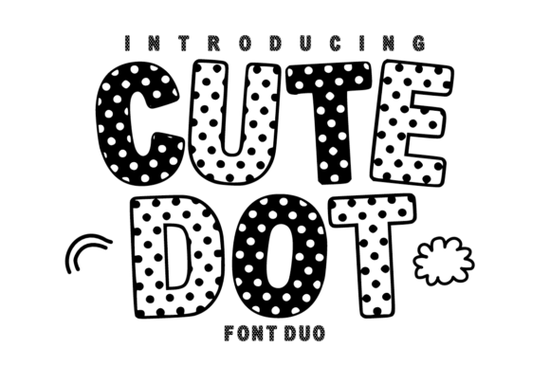
Looking for a fun, playful typeface that works across birthday invitations, classroom decor, and print-on-demand projects? The Cute Dot Duo Font delivers exactly that a cheerful polka dot display font paired with a clean solid companion, giving you two complementary styles in one download. It's designed for anyone who wants their text to feel lighthearted and approachable without sacrificing readability.
What Comes in the Cute Dot Duo Font Package?
This font set includes two distinct styles that work beautifully together or on their own:
- Polka Dot Version A bold display font filled with classic round dots, giving each letter a textured, hand-crafted appearance.
- Solid Version A clean, matching typeface with the same quirky letter shapes but without the dot fill. Perfect for body text or layering beneath the dotted version.
Because both fonts share the same underlying structure, you can pair them freely. Use the dotted style for headlines and the solid version for supporting text. The irregular, slightly uneven shapes give the whole set a warm, hand-drawn feel that's hard to replicate with standard fonts.
Why Do Designers Love Polka Dot Fonts for Kids' Projects?
Polka dot fonts like Cute Dot tap into a visual language that people instantly associate with playfulness and celebration. The round, repeating pattern reads as cheerful not busy especially when the letterforms are kept bold and simple. That's why you'll see this style everywhere on:
- Birthday party invitations and matching envelopes
- Classroom bulletin boards and teacher resource covers
- Children's apparel and tote bag designs
- Scrapbook titles and digital planner stickers
- Baby shower signage and stationery branding
The key is that dot-filled type adds visual interest without relying on extra illustrations. A single word set in this font can carry an entire design.
Does This Font Work With Cricut and Silhouette Machines?
Yes, and this is one of the biggest reasons crafters pick it up. The bold, high-contrast letterforms cut cleanly on vinyl, cardstock, and sticker paper. Because the polka dot pattern is built directly into the font not applied as a separate texture it transfers well to physical cutting machines without creating fragile, intricate paths that snag or tear.
A few practical tips for cutting projects:
- Use the solid version for smaller cuts (under 1 inch height) where the dots might not read clearly.
- Use the dotted version at larger sizes where the pattern adds character without becoming too dense.
- Test-cut a single letter before committing to a full layout, especially on textured vinyl.
How Does Cute Dot Compare to Other Decorative Fonts?
If you're building a collection of playful typefaces, it helps to understand where each one fits. Cute Dot is specifically designed for a sweet and happy aesthetic think children's parties, baby brands, and lighthearted merchandise. If you need something more formal or structured, you might look at a bold monogram slab serif for initials and logo work. For projects that call for elegance with a decorative edge, an elegant decorative script offers a completely different mood.
Having a range of styles in your toolkit means you can match the font to the project's tone rather than forcing one typeface to do everything.
Best Ways to Use This Font in Print-on-Demand
If you sell on platforms like Etsy, Redbubble, or Merch by Amazon, fonts like this one help you create designs that stand out in crowded categories. Here are a few product ideas that pair well with this playful font duo:
- T-shirt designs Use the dotted font for a single bold word like "PARTY" or "SMILE" on kids' tees.
- Mugs and tumblers Layer the solid version over a colorful background for clean readability.
- Greeting cards Combine both versions for a headline-plus-subtext layout.
- Stickers and planner accessories The small, playful shapes translate well to die-cut sticker sheets.
Quick Checklist Before You Start Designing
Here's a simple action plan to get the most out of your purchase:
- ✅ Download both font files and install them on your system.
- ✅ Test each version at multiple sizes to see where the dots perform best.
- ✅ Try layering the solid version behind the dotted one with a slight offset for a shadow effect.
- ✅ Pair it with simple sans-serif fonts for body copy the dots do the heavy lifting, so keep supporting text minimal.
Start with one small project a single invitation or a test sticker design and build from there. You'll quickly get a feel for which version works best at which scale.